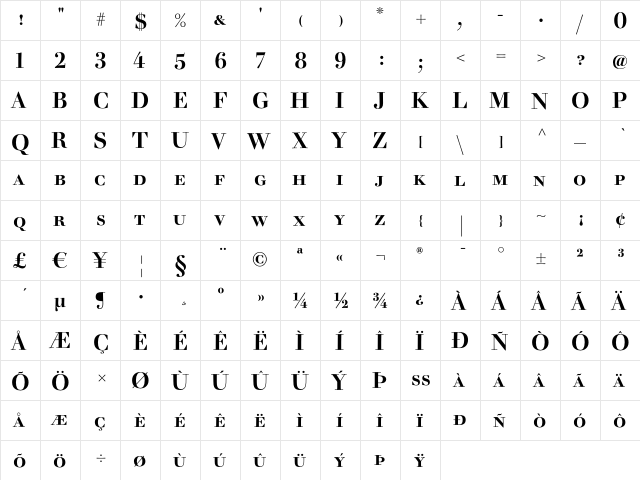
Acanthus SmallCapsBold Font Preview
Acanthus SmallCapsBold
Acanthus SmallCapsBold Font Details
Design Context for Acanthus Typeface
Acanthus takes a measured approach to typography — its balanced proportions and neutral character make it a reliable workhorse for both digital and print work. Its bold stroke weight gives it real presence on the page.